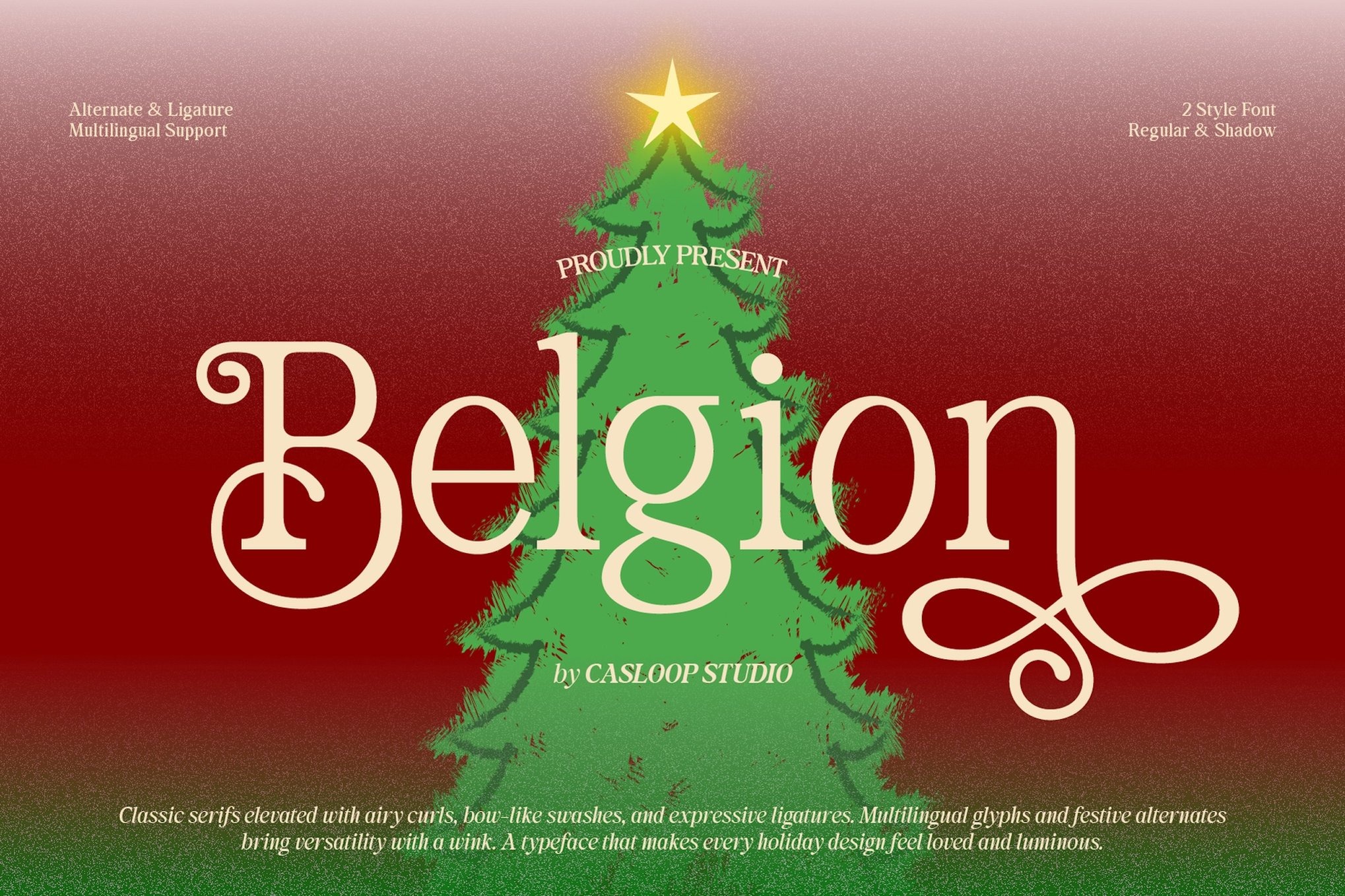
Belgion Font
Belgion Font is a luxury classic display font designed to capture elegance, sophistication, and festive charm in a timeless typographic style. Combining classic letterform influences with refined decorative details, Belgion delivers a premium visual experience that is especially well-suited for high-end branding, elegant design projects, and seasonal creative works. This font is crafted for designers who value luxury aesthetics, strong visual presence, and refined typography.
As a luxury display font, Belgion excels in large-scale typography where detail and character truly matter. Its elegant structure and carefully shaped letterforms make it an excellent choice for logos, branding identities, headlines, posters, invitations, packaging, and editorial layouts. Belgion’s classic appearance brings a sense of tradition and prestige while remaining visually appealing for modern design contexts.
Belgion is particularly well-suited for Christmas and holiday-themed designs, where elegance and warmth are essential. The font’s refined curves and classic proportions create a festive yet luxurious atmosphere, making it ideal for Christmas branding, greeting cards, event promotions, seasonal packaging, and premium holiday campaigns. Whether used for elegant invitations or festive headlines, Belgion enhances the emotional appeal of seasonal visuals.
The design of Belgion emphasizes balance, readability, and decorative elegance. Each character is thoughtfully constructed to maintain clarity while showcasing ornamental details that elevate the overall aesthetic. This makes Belgion effective not only for decorative purposes but also for structured layouts that require visual harmony. Designers can rely on Belgion to create strong typographic hierarchies that guide attention naturally across a composition.
In branding and logo design, Belgion provides a distinctive and memorable typographic voice. Its luxurious style communicates quality, exclusivity, and sophistication, making it suitable for fashion brands, luxury products, boutiques, restaurants, hotels, event planners, and premium services. Belgion helps brands establish a refined identity that feels timeless rather than trend-driven, ensuring long-term visual relevance.
Belgion also performs exceptionally well in marketing and promotional materials. Its elegant display style enhances headlines and key messaging, making content feel polished and professional. When used in posters, banners, flyers, and digital advertising, Belgion draws attention without appearing overwhelming. This balance between decoration and readability makes it a reliable choice for high-visibility design applications.
For web design, Belgion brings classic elegance to digital experiences. As a classic display font for web and UI design, it works beautifully in hero sections, featured headings, promotional banners, and landing page titles. Its refined letterforms maintain visual impact across different screen sizes, ensuring consistent performance on desktops, tablets, and mobile devices. Belgion helps elevate the perceived value of websites by adding a touch of luxury and sophistication.
In print applications, Belgion retains its charm and clarity. It is well-suited for magazines, brochures, packaging, business cards, menus, invitations, and event materials. The font’s classic proportions and elegant detailing ensure that printed designs feel premium and professionally crafted. Whether used for formal events or festive occasions, Belgion adds depth and character to printed typography.
Belgion includes a comprehensive set of uppercase letters, numerals, punctuation, and essential symbols, offering flexibility for diverse creative needs. Its consistent spacing and visual rhythm contribute to smooth typographic flow, making it easier to integrate into complex layouts. This attention to detail ensures that Belgion performs reliably in professional design workflows.
Designers, creative directors, and branding professionals will appreciate Belgion’s versatility and refined aesthetic. It supports a wide range of projects, from luxury branding systems and editorial design to festive holiday campaigns and elegant digital experiences. Belgion transforms ordinary text into visually engaging statements, enhancing both emotional appeal and visual storytelling.
Overall, Belgion Luxury Christmas Elegant Classic Display Font delivers a refined combination of elegance, tradition, and premium design quality. Its classic display style, festive versatility, and strong visual presence make it an outstanding choice for designers seeking to elevate branding, marketing, and creative projects. Whether used for luxury identities, seasonal promotions, or elegant typography, Belgion provides a timeless foundation that enhances design impact and professionalism.